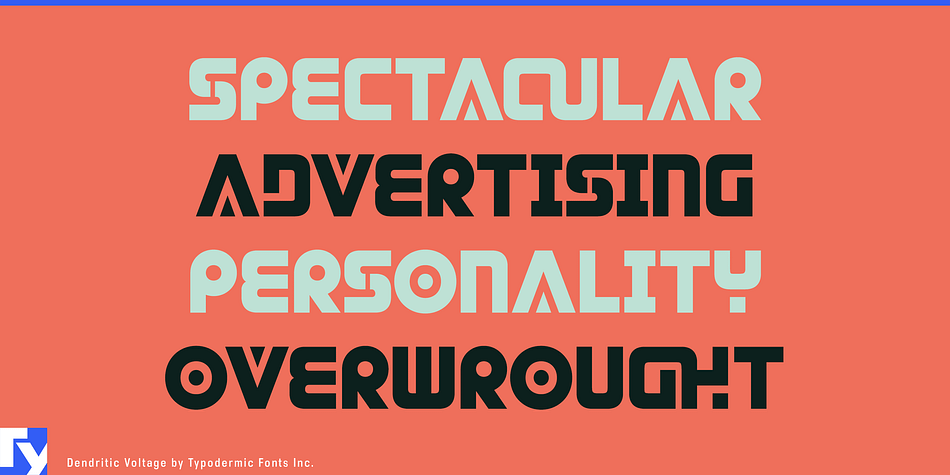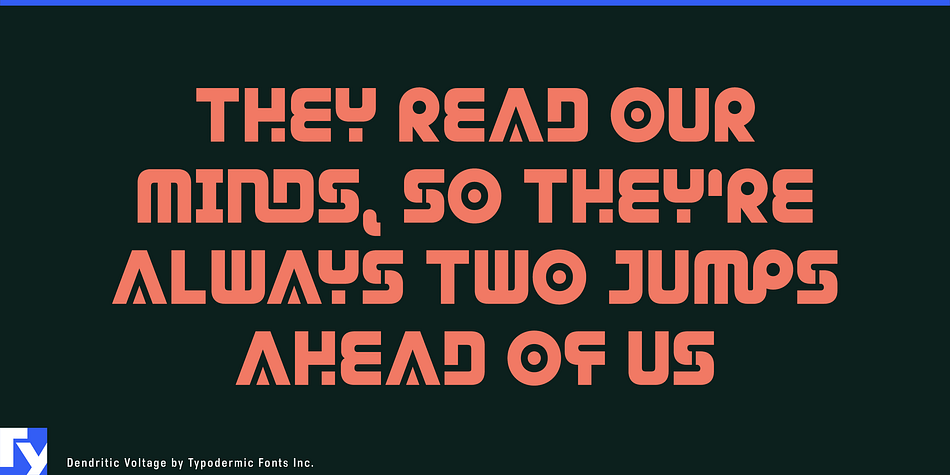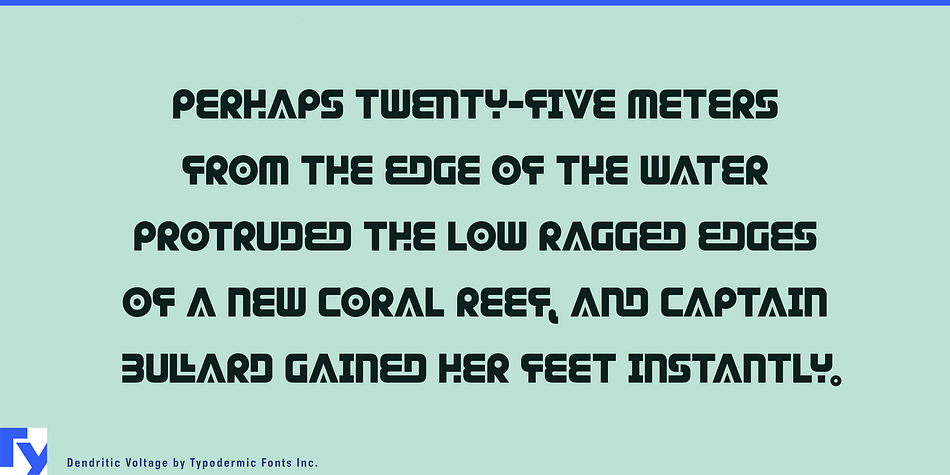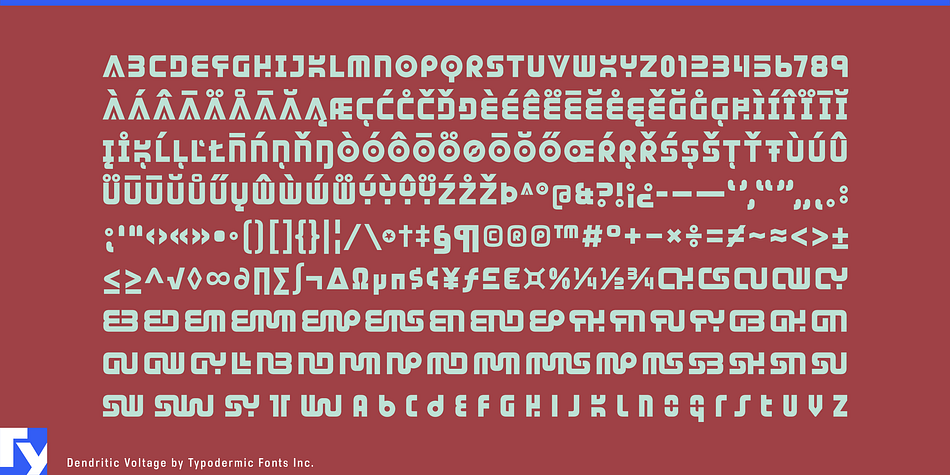
Dendritic Voltage is a novelty font published by Typodermic Fonts Inc.
Dendritic Voltage is a techno font inspired by digital trash. In OpenType savvy applications certain letter combinations are automatically replaced by joined letter pairs. The original narrow caps are available in OpenType apps using the ‘stylistic alternates’ feature.